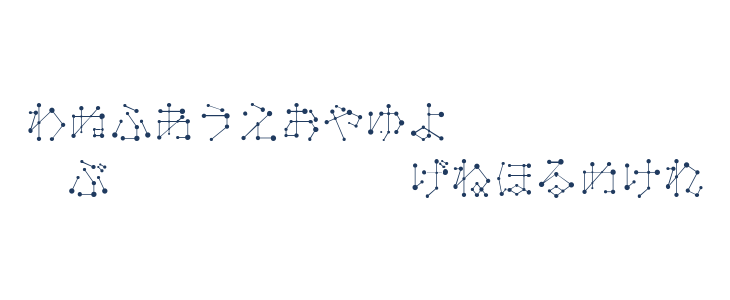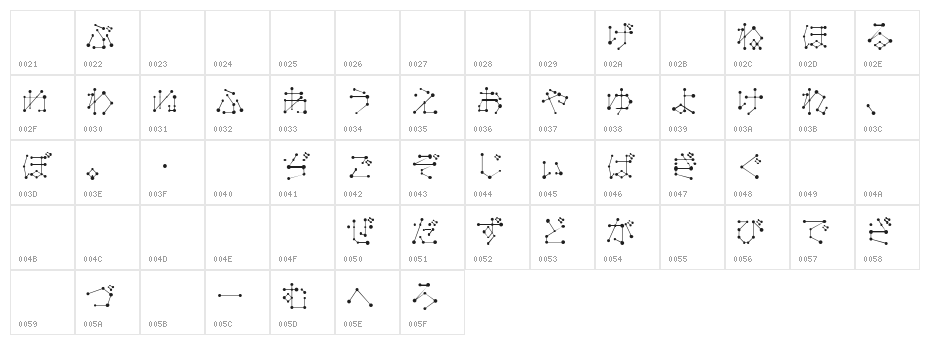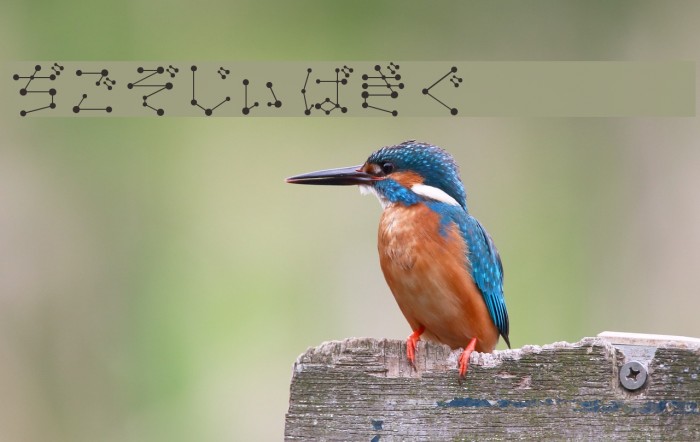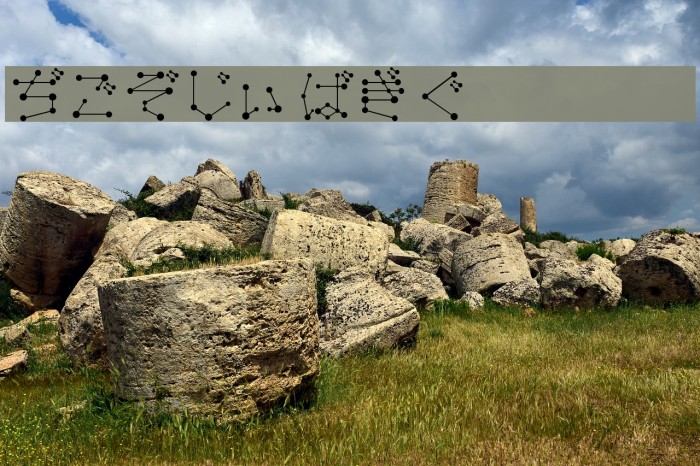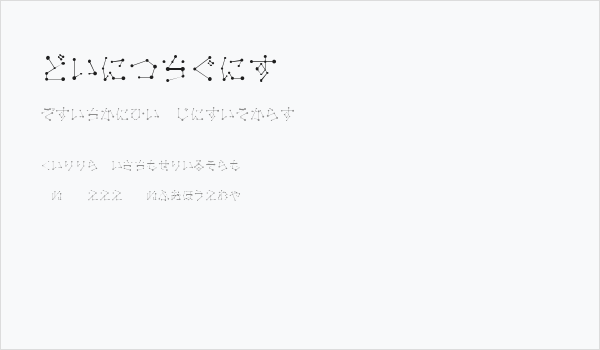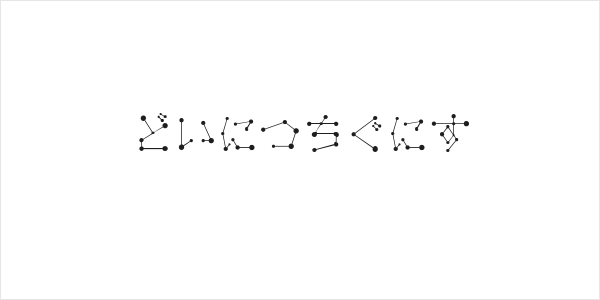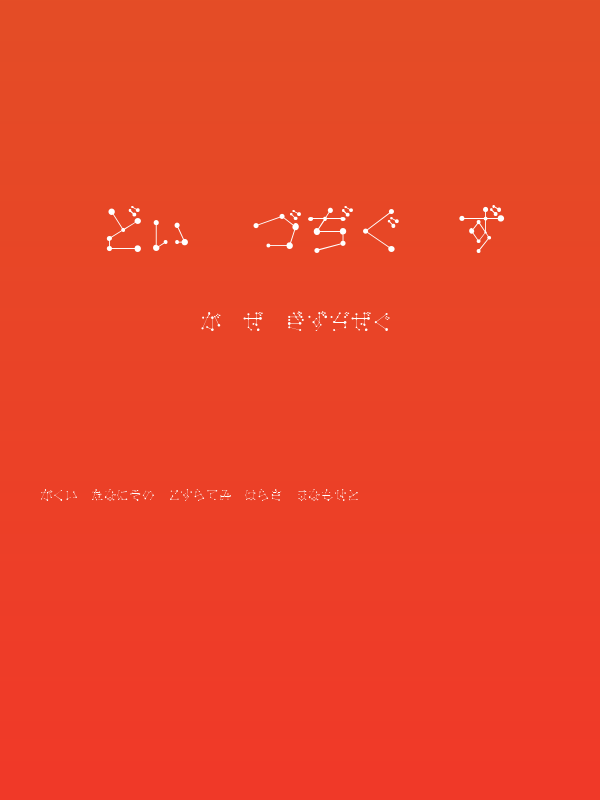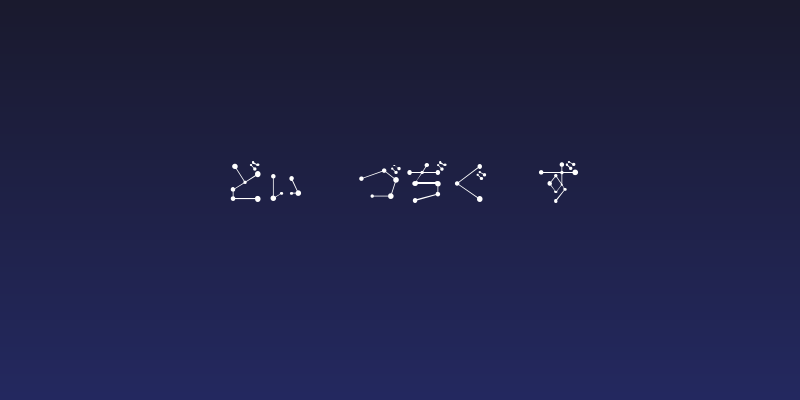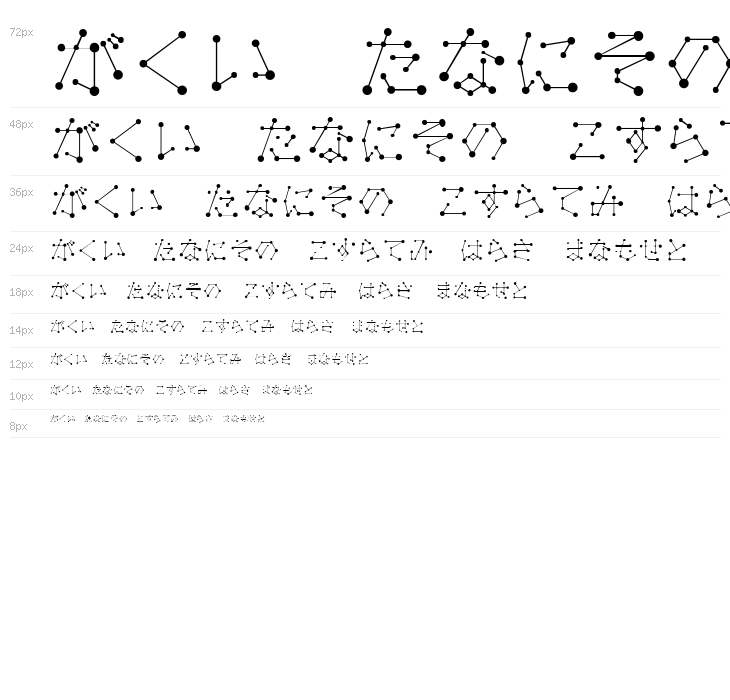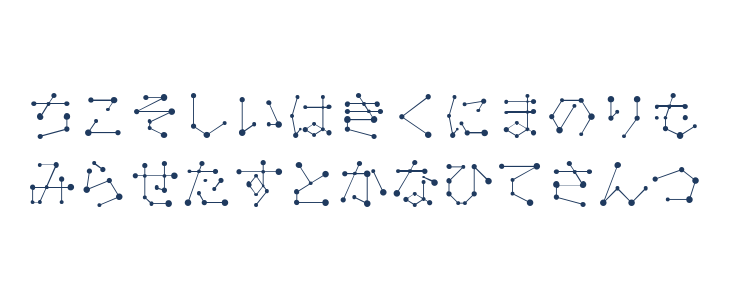
SeizaHir Font
SeizaHir Description
This font is a creative and artistic representation of characters using a constellation-like design. Each character is formed by connecting dots with lines, mimicking the appearance of star constellations. The design is both unique and visually intriguing, offering a celestial theme that stands out. The characters maintain a consistent style, with each letter and symbol crafted to resemble a pattern of stars connected by lines. This approach gives the font a whimsical and imaginative feel, perfect for projects that aim to evoke a sense of wonder or fantasy. The spacing between the dots and lines is carefully considered to ensure legibility while maintaining the overall aesthetic. The font's playful yet sophisticated design makes it suitable for a variety of creative applications.
Use CaseHeadlines, Logos, Decorative text
Proposed ProjectsIdeal for astronomy-themed posters, children's books, fantasy novels, or any project seeking a whimsical and imaginative touch.